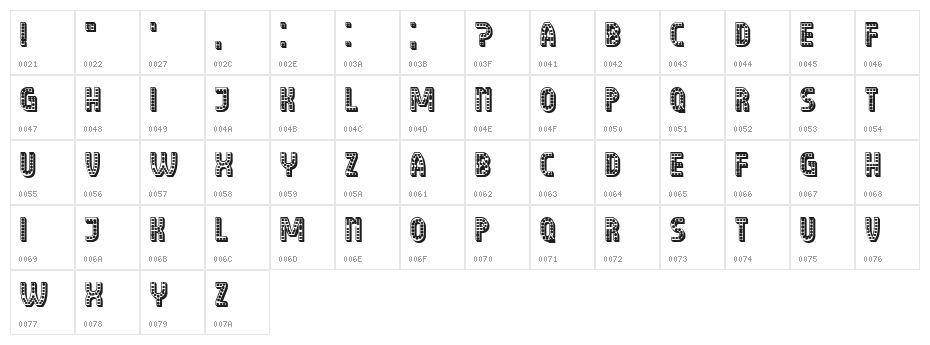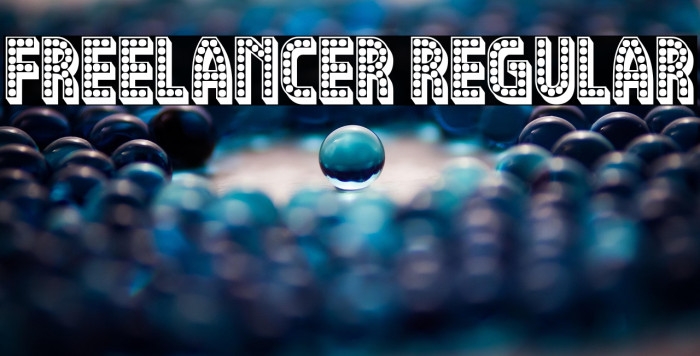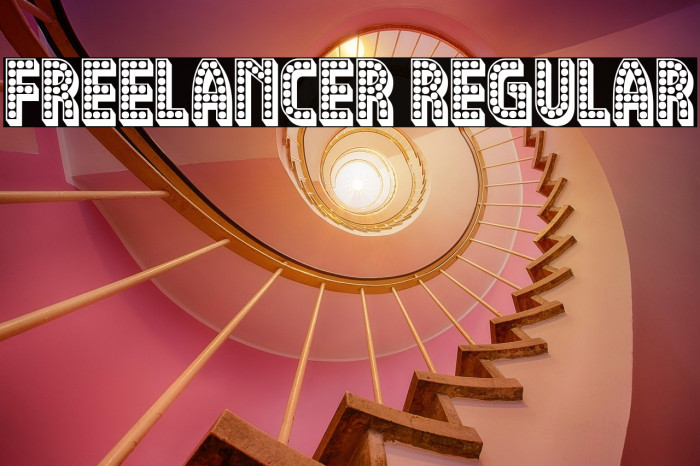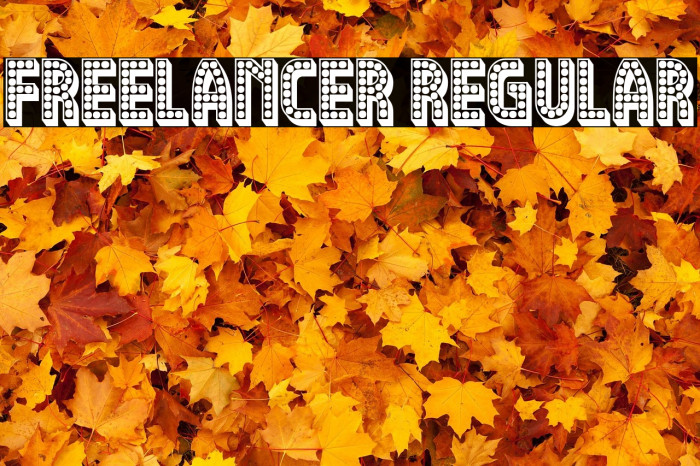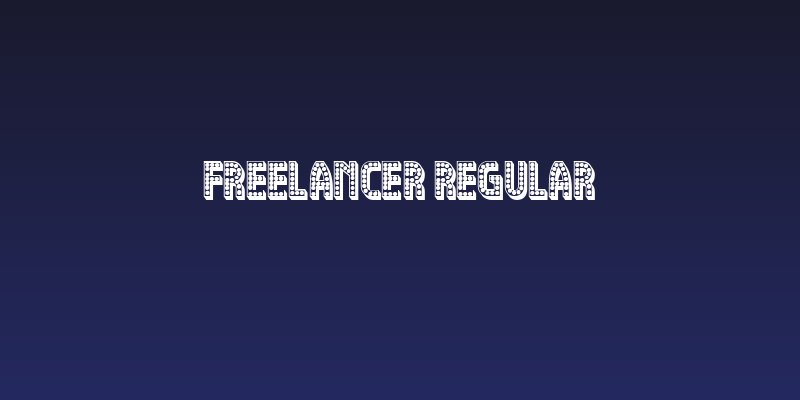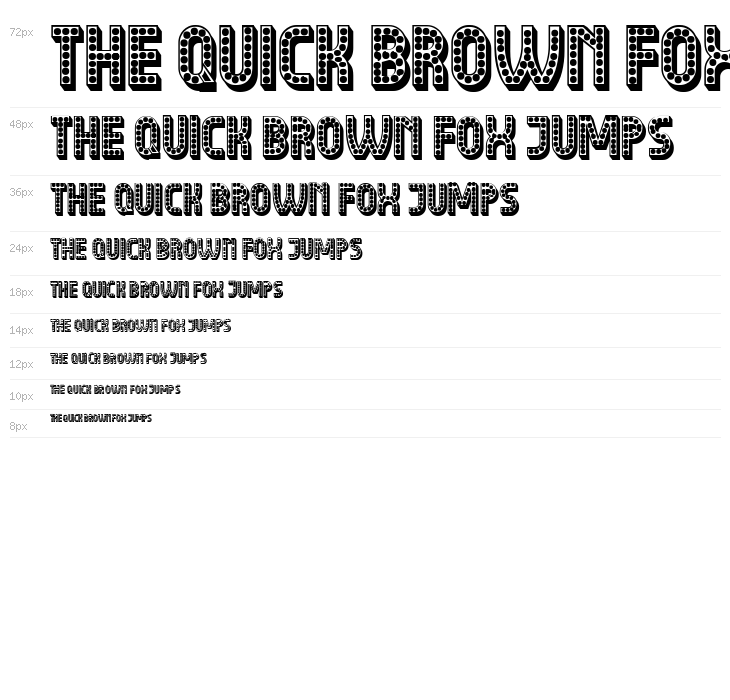
Freelancer Regular Font
Freelancer Regular Description
This font features a bold and decorative style with a unique dotted pattern filling each character. The uppercase letters are designed with a playful yet structured appearance, making them stand out with their bold outlines and intricate interior details. The font's geometric structure is consistent across all characters, providing a cohesive look. The dots within each letter add a sense of rhythm and movement, making it ideal for eye-catching designs. The font's playful nature is balanced by its clear readability, making it suitable for various creative applications.
| Proposed Projects | Ideal for posters, signage, branding, and any project requiring a bold, eye-catching typeface. |